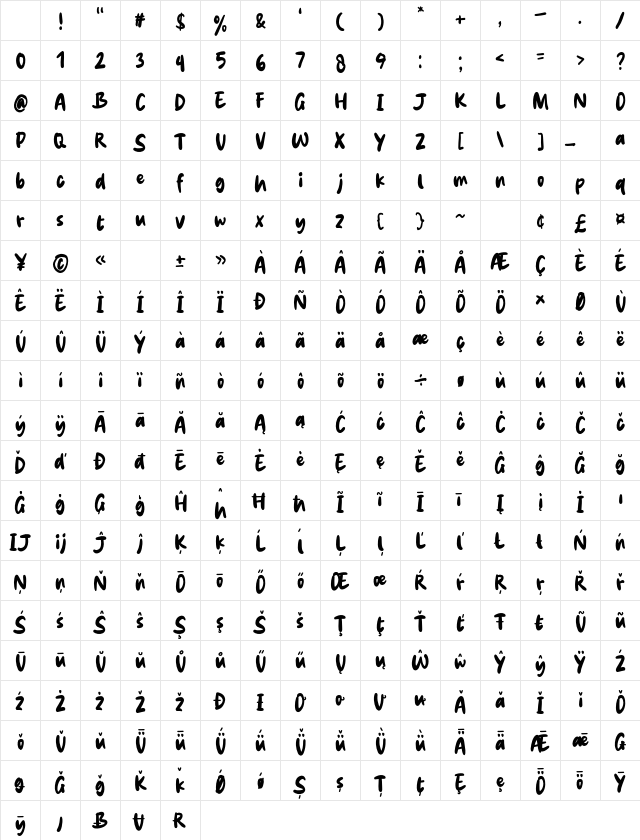
Hey Bro ! Regular Free Font
Hey Bro ! Regular
Foundry: ￿Silverdav Studio
Designer: Hasna - Violatype
Design Context for Hey Bro !
Hey Bro ! is a composed and adaptable typeface that performs quietly and consistently across a wide range of design contexts.